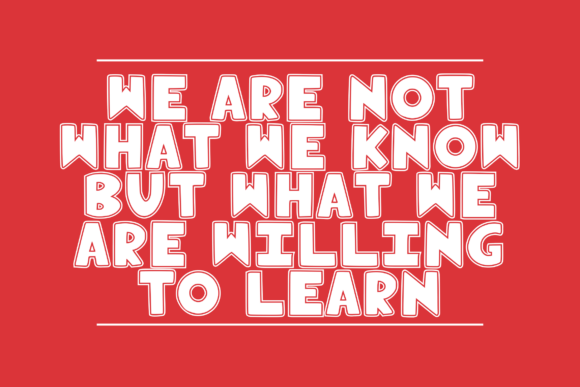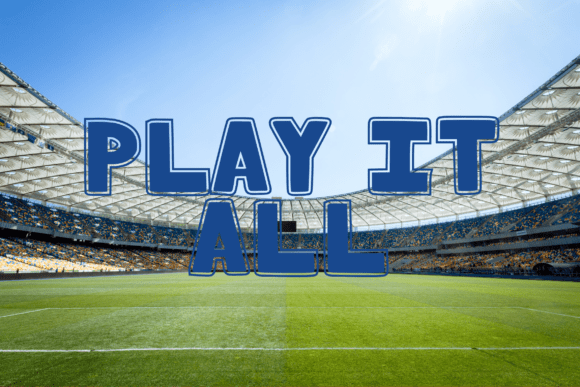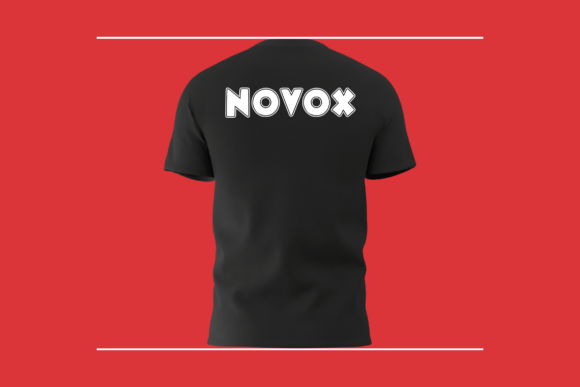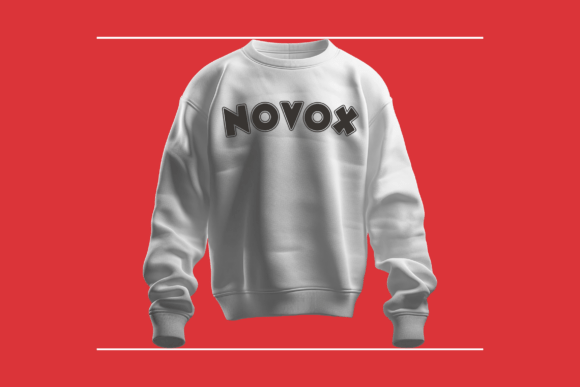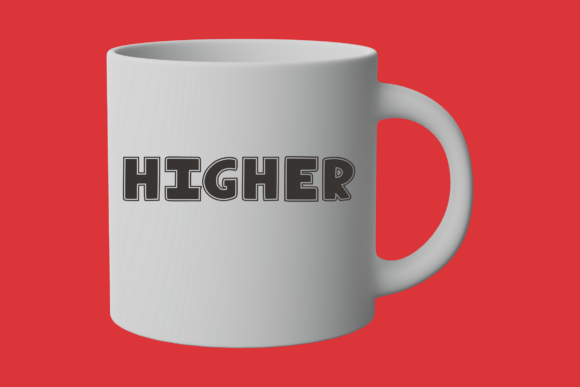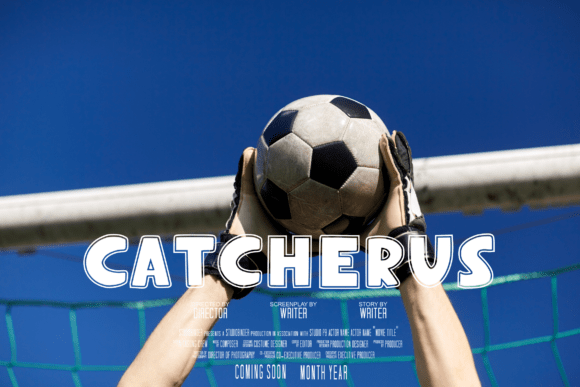
Introduction to Novox Varsity Font
Novox Varsity – Bold & Athletic College Font Novox Varsity is a striking display typeface inspired by classic collegiate lettering.
With its bold block shapes, clean edges, and vintage varsity flair, this font brings the spirit of sports, school pride, and retro charm to your designs Whether you’re crafting team merchandise, yearbook covers, motivational posters, or nostalgic apparel, Novox Varsity delivers the confident impact of traditional athletic aesthetics.